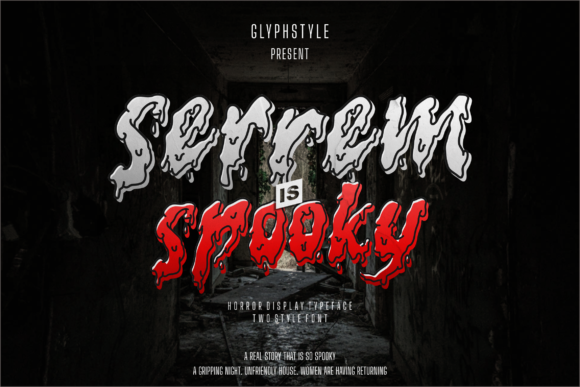
Unleash the eerie allure of your designs with Serrem, a captivating display font that drips with the essence of horror. Its unsettling blood droplets and spine-chilling aura will send shivers down your spine, leaving an unforgettable mark on your audience.
Embark on a spine-tingling journey as you explore Serrem's menacing beauty. Each letterform is meticulously crafted to evoke a sense of unease, with jagged edges and ominous shapes that whisper tales of dark enchantment. The blood droplets, scattered like crimson tears, add a touch of macabre elegance that will leave your designs dripping with intrigue.
Let your imagination run wild as you conjure haunting posters, chilling book covers, and unsettling logos with Serrem. Its versatility extends beyond the realm of horror, allowing you to create designs that evoke a sense of mystery, intrigue, and the uncanny. Whether you're a seasoned designer or just starting to explore the world of typography, Serrem will guide you through the shadows, unleashing your creativity like never before.
Immerse yourself in the dark allure of Serrem, and let your designs transcend the ordinary. Embrace the thrill of the unknown and captivate your audience with visuals that linger in their minds long after they've encountered them. With Serrem as your creative companion, you'll unlock a realm of limitless possibilities, where the boundaries of design dissolve into a chilling symphony of darkness and beauty.